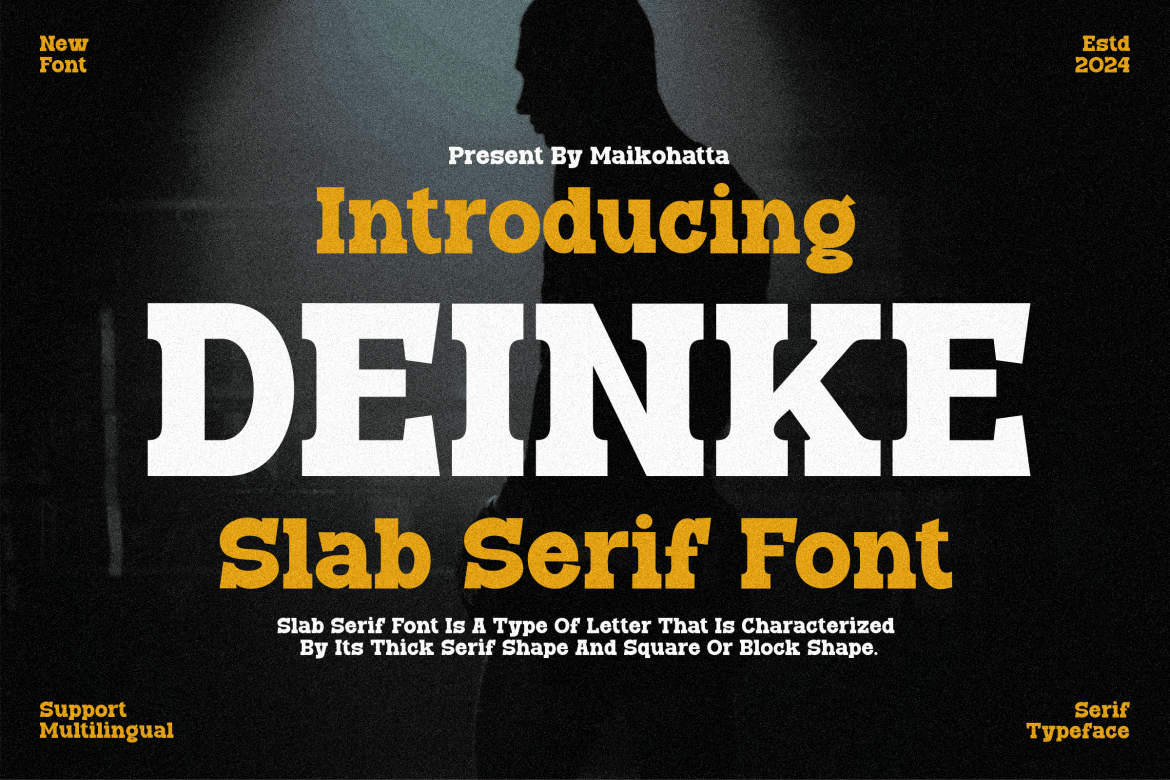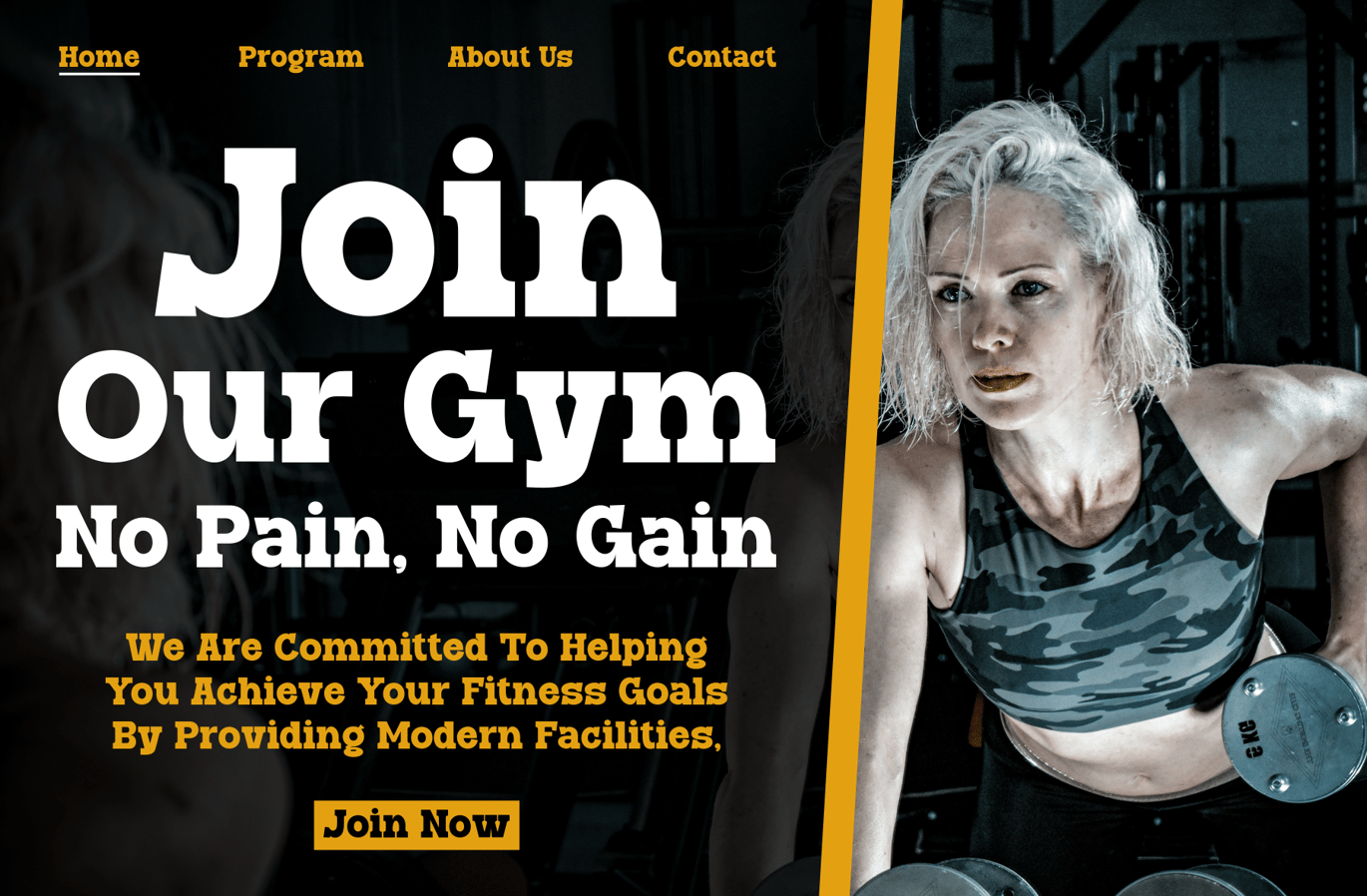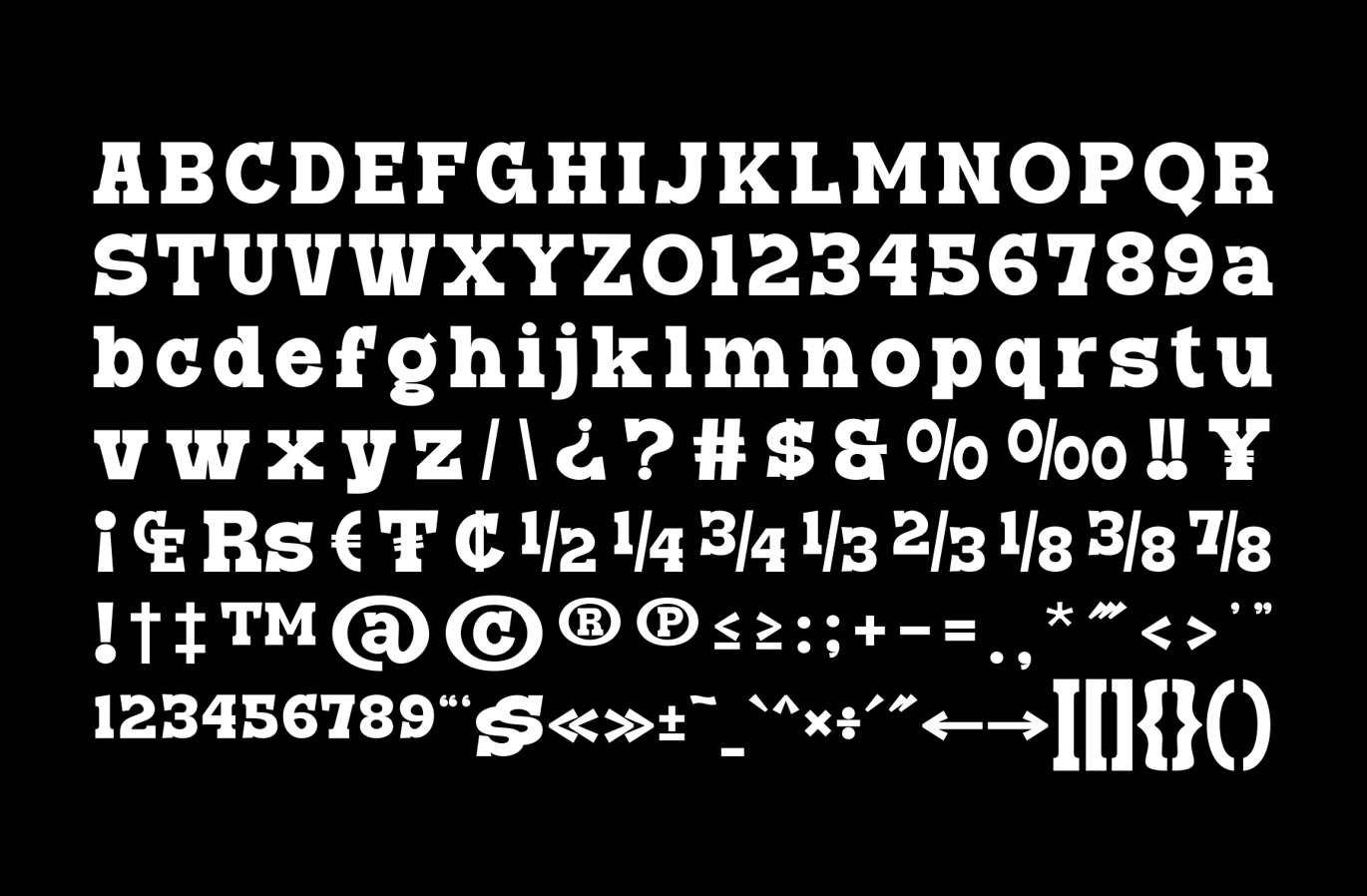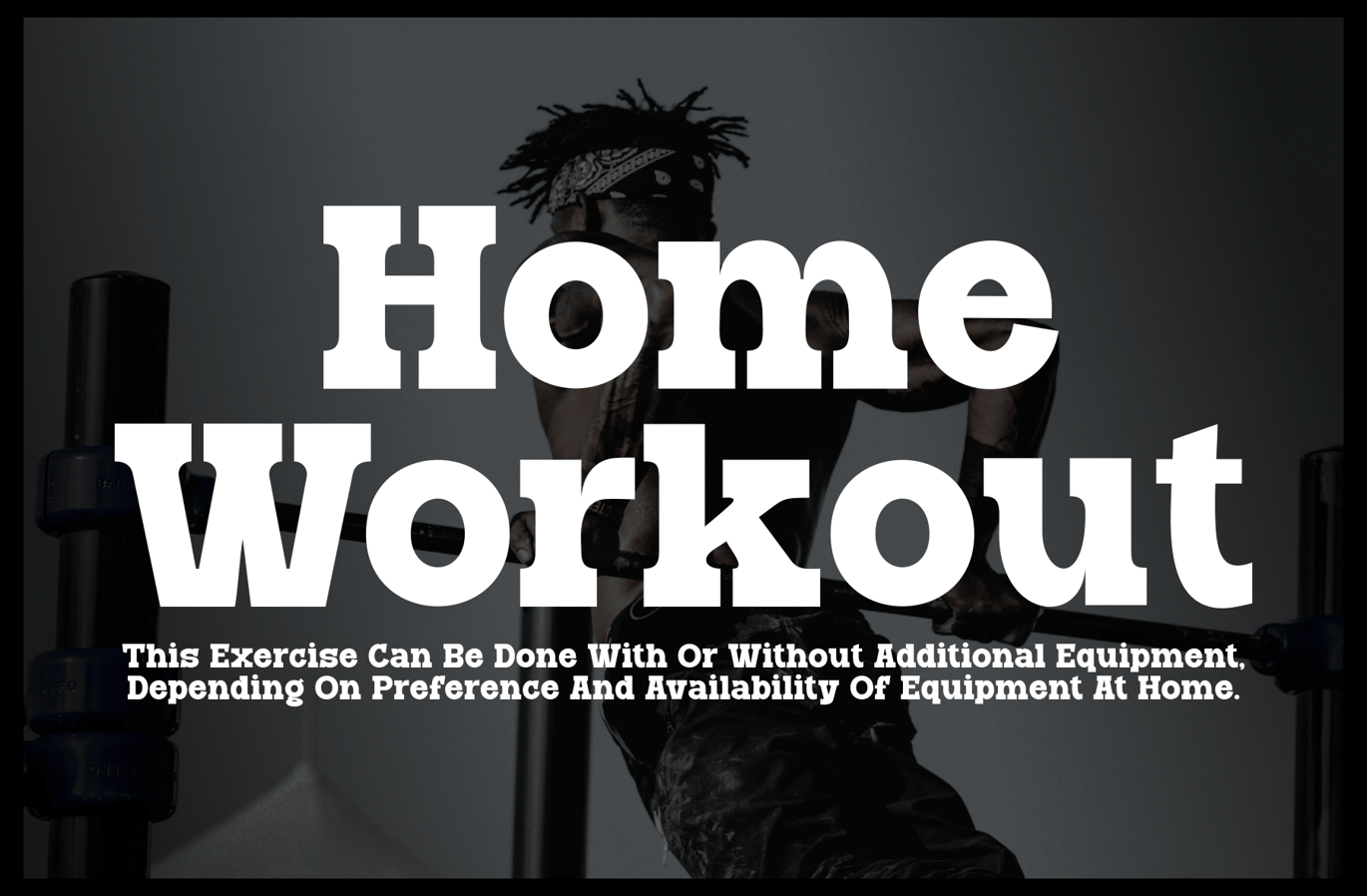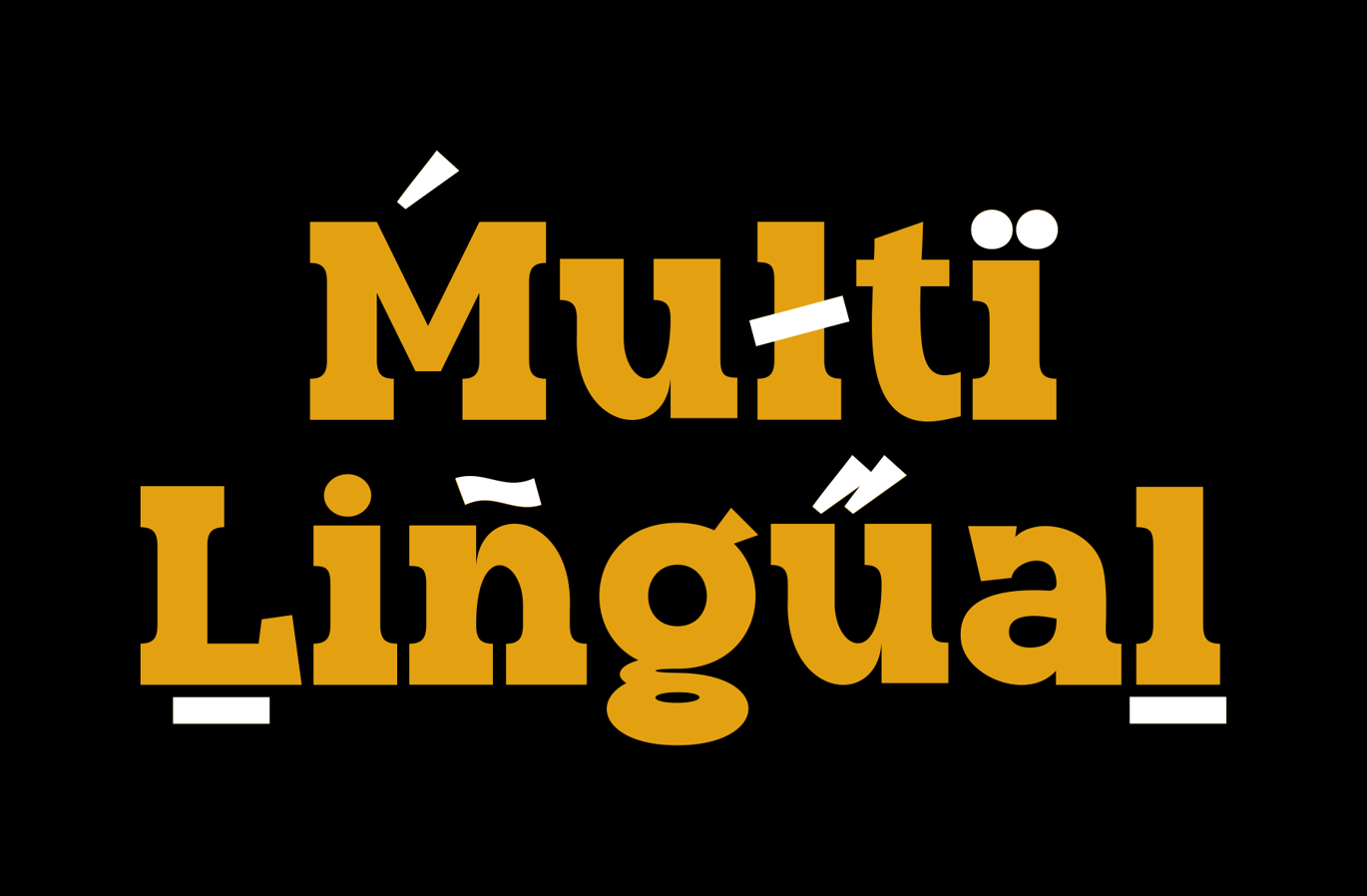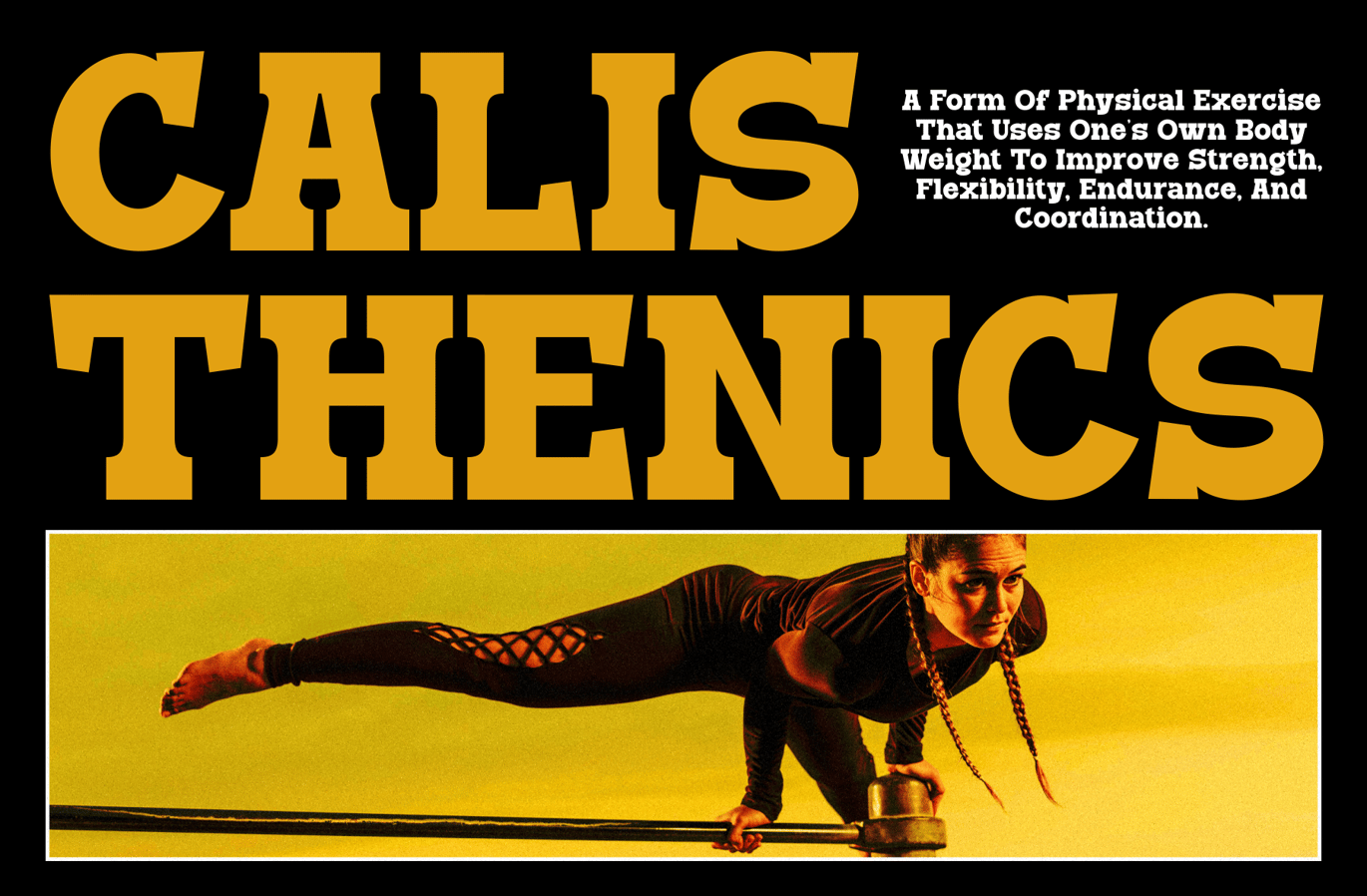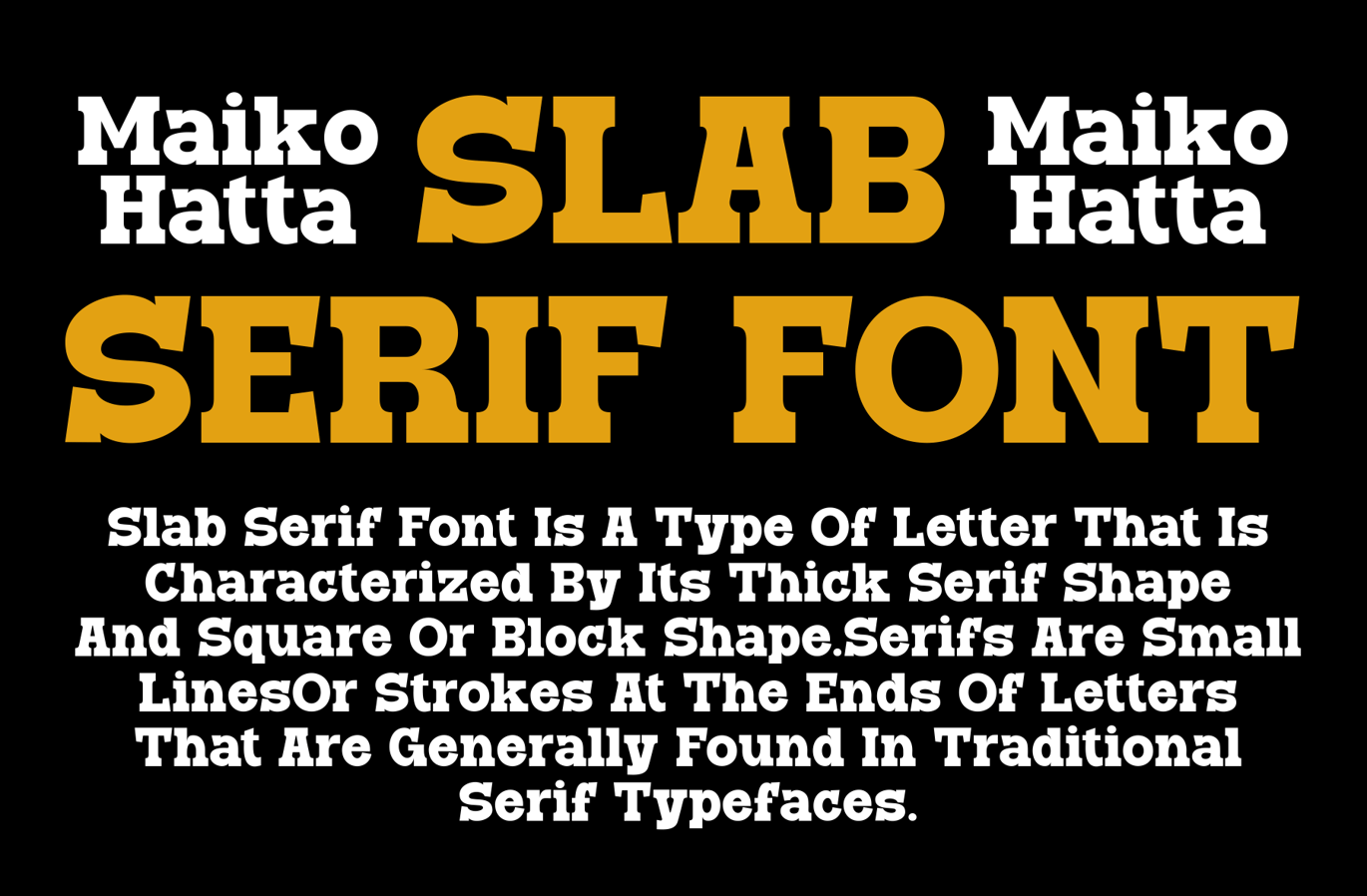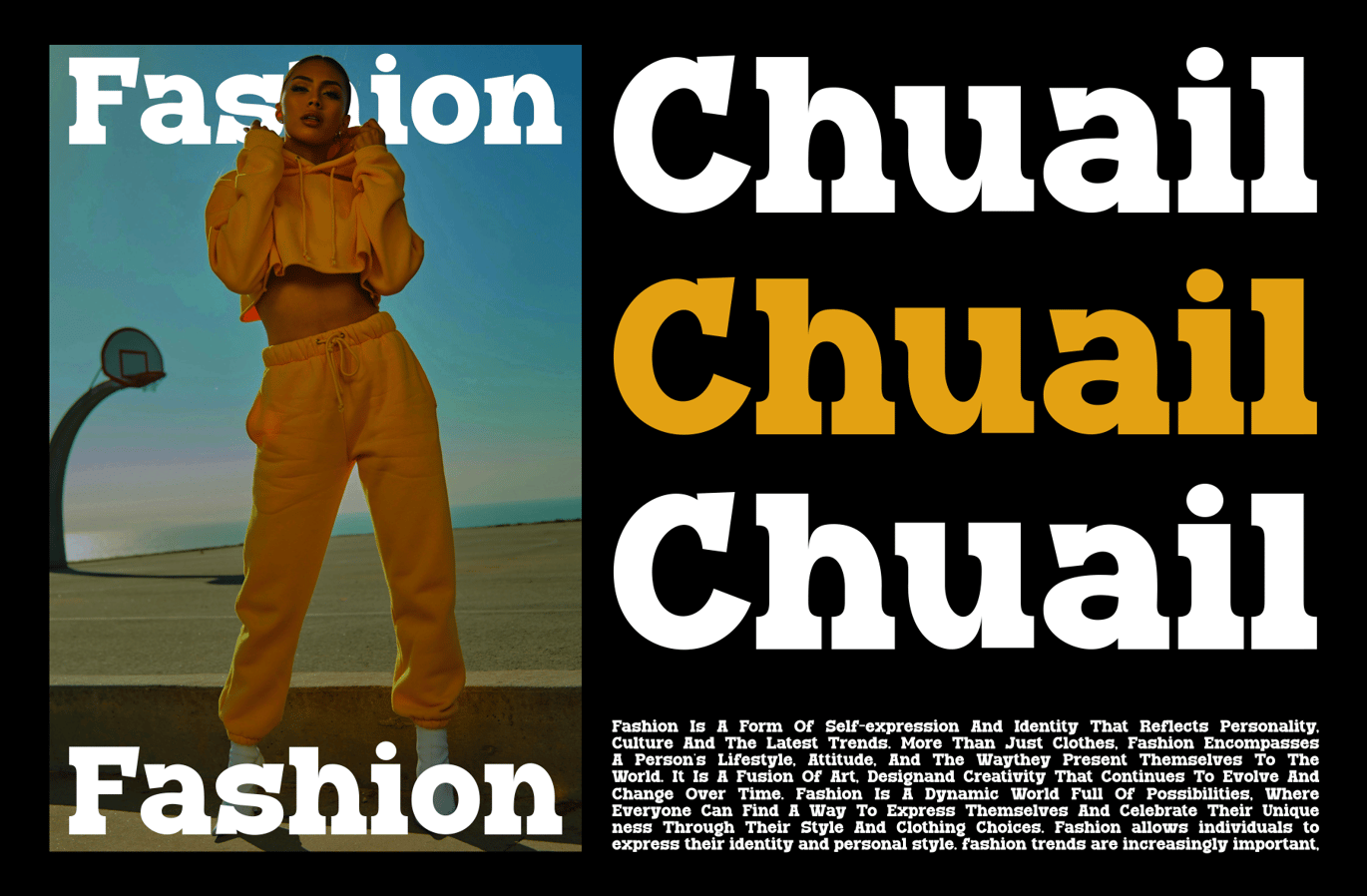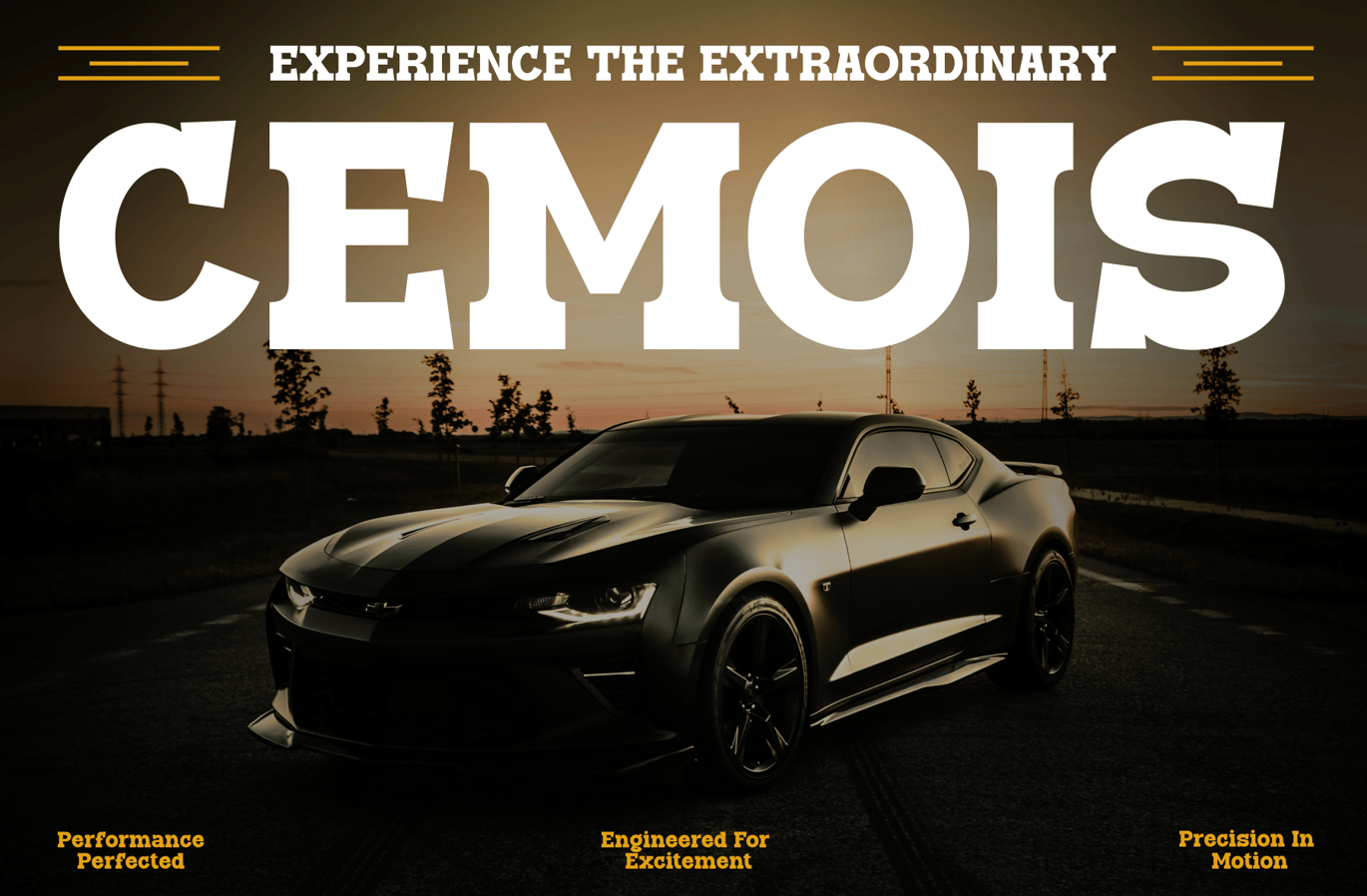
Deinke – Slab Serif Font
Introducing our new product Deinke – Slab Serif Font
This font is characterized by reflecting joy, cheerfulness and a light atmosphere with a handwritten style often found in comics or cartoons.
This font is perfect for projects that want to highlight elements of playfulness and fun, such as poster designs, invitation cards, comics, or promotional materials aimed at a younger audience or those looking for a fun feel.